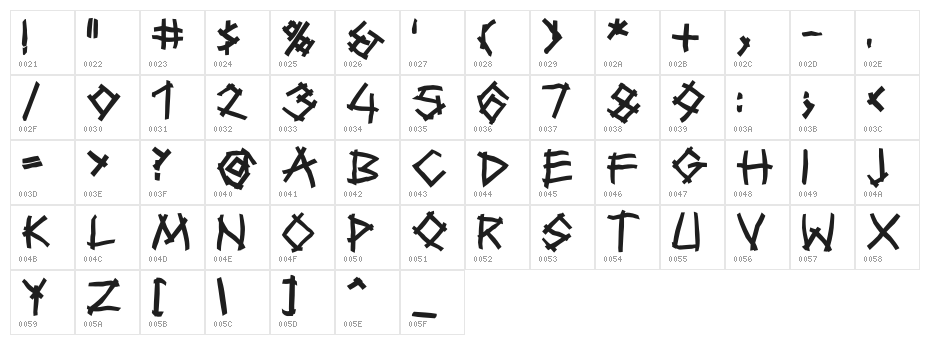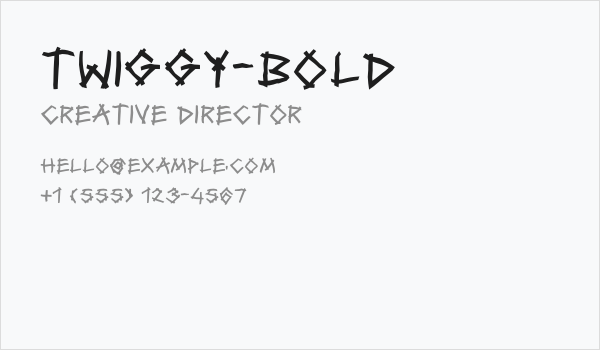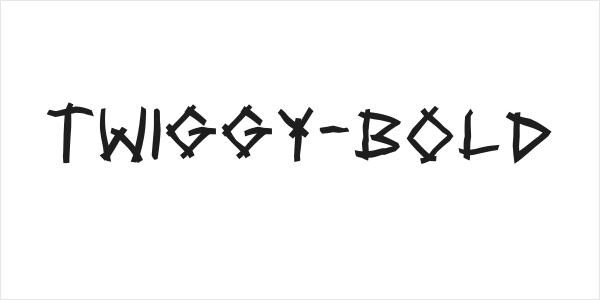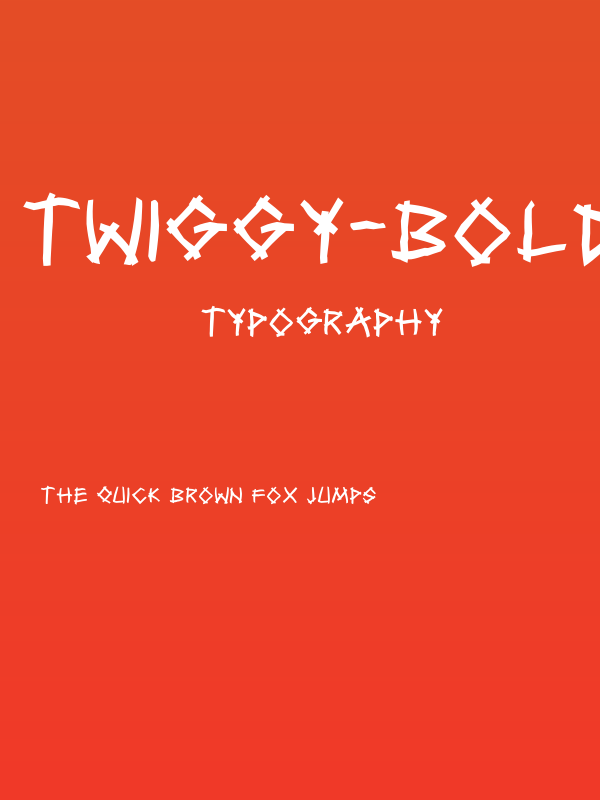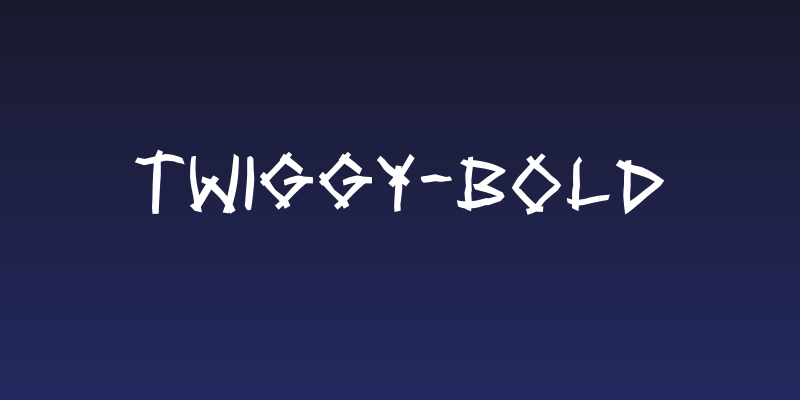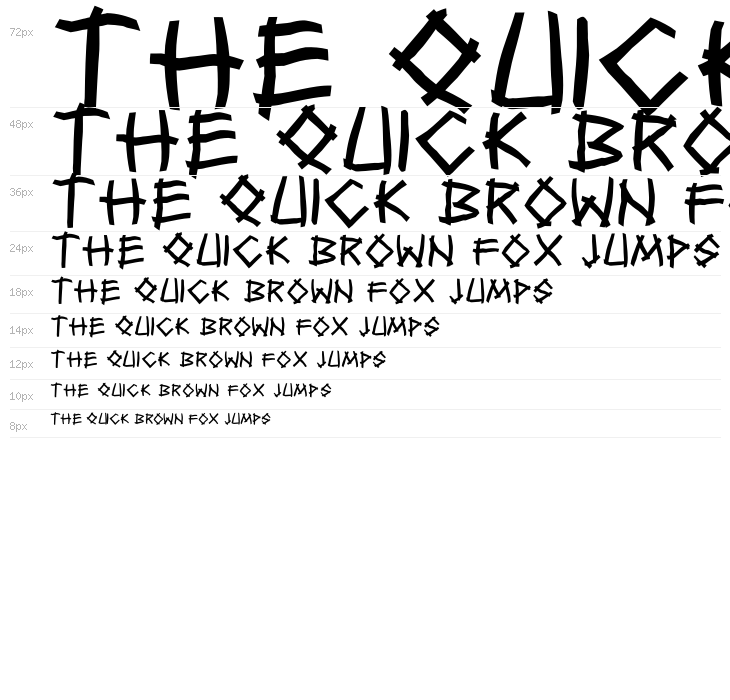
Twiggy-Bold Font
Twiggy-Bold Description
This font features a bold and edgy design, characterized by its sharp, angular strokes and a hand-drawn appearance. Each letter is crafted with a unique, almost rugged style that gives it a distinctive, rebellious look. The uppercase and lowercase letters maintain a consistent style, with thick lines and pointed edges that create a sense of movement and energy. The numerals and special characters follow the same aesthetic, ensuring a cohesive look across all text elements. This font is perfect for projects that require a bold statement or an unconventional, artistic touch.
| Overall Style | Modern, Edgy |
| Proposed Projects | Ideal for album covers, posters, streetwear branding, and edgy graphic design projects. |